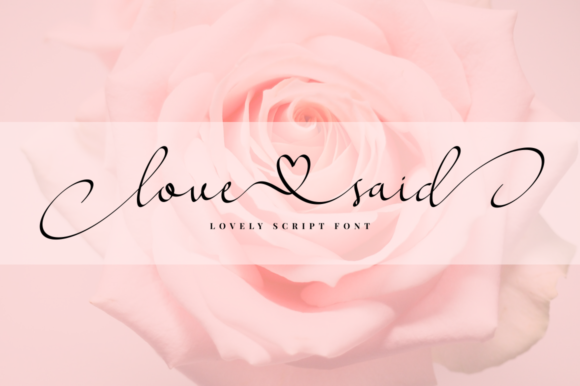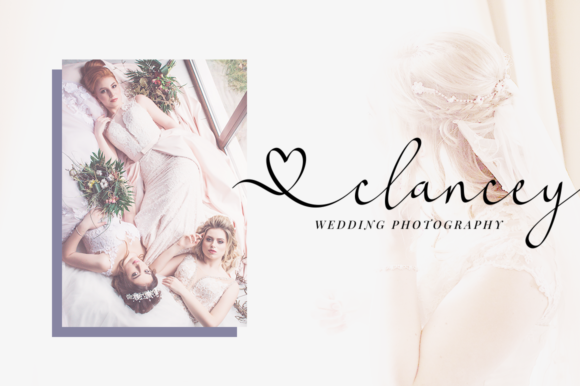
About Love Said Font
Love Said is a beautiful and clean calligraphic script font. This font is suitable for wedding invitations, logos, and branding.Love Said has complete uppercase and lowercase letters. This font also has many alternative letters for more than 670 glyphs. Multilingual support is also available in this font.
The following features are available:– Uppercase– Lowercase– Standard Ligatures– Alternates (ss01,ss02,ss03,ss04,ss05,ss06,ss07,ss08)– Contextual Alternates– Contextual Ligatures (Ligature with alternates)– Kerning